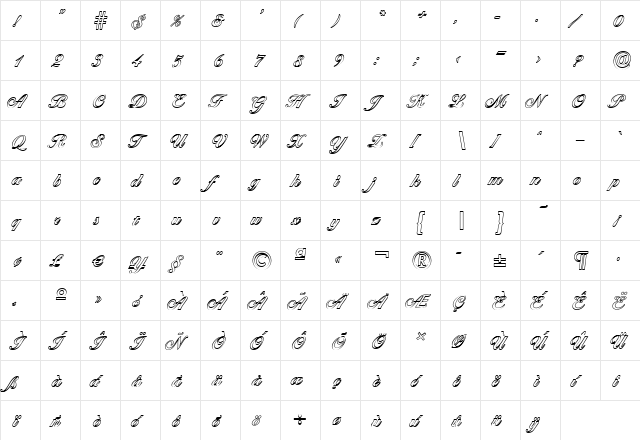
BallantinesOutline Bold Font Preview
BallantinesOutline Bold
Design Context for BallantinesOutline Typeface
BallantinesOutline is built around its visual character rather than neutral utility — its distinctive forms are designed to make an impression at display sizes. Its bold stroke weight gives it real presence on the page.
Font Pairing: Pair with a clean neutral sans-serif for body copy to let BallantinesOutline's character lead without overwhelming the composition.
Pro Tip: Use BallantinesOutline exclusively at display sizes — it was designed to be seen, not read at length. Let a neutral companion handle body copy.